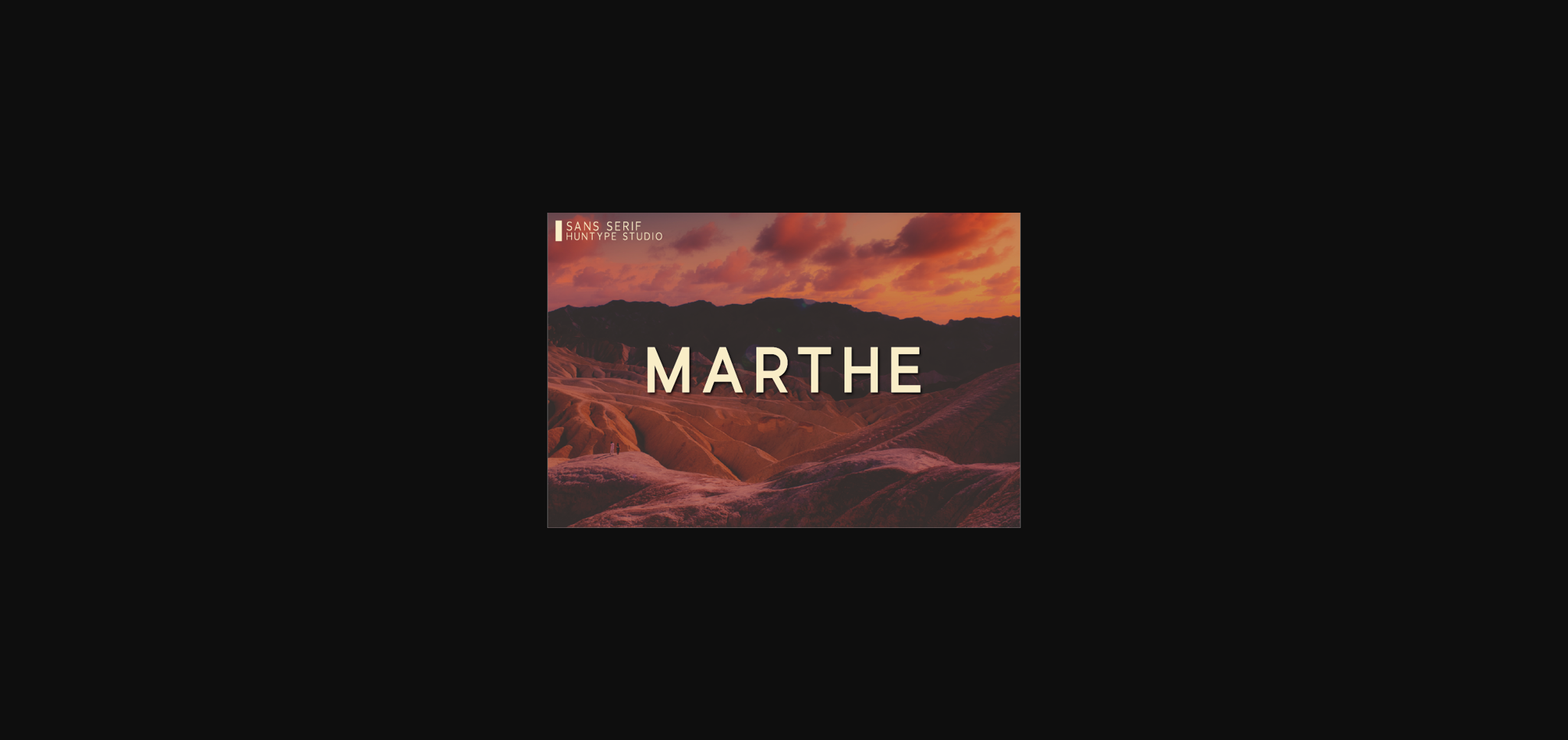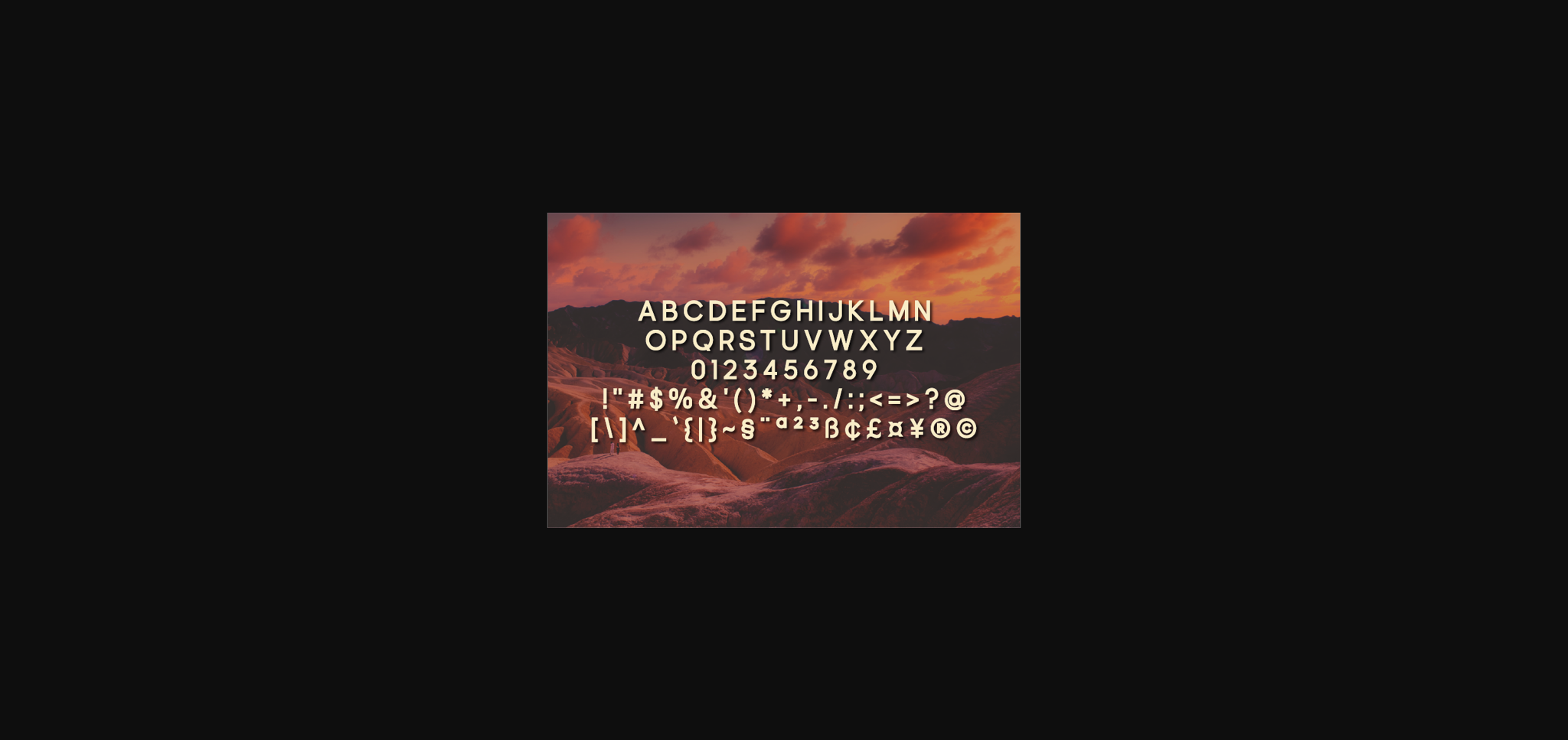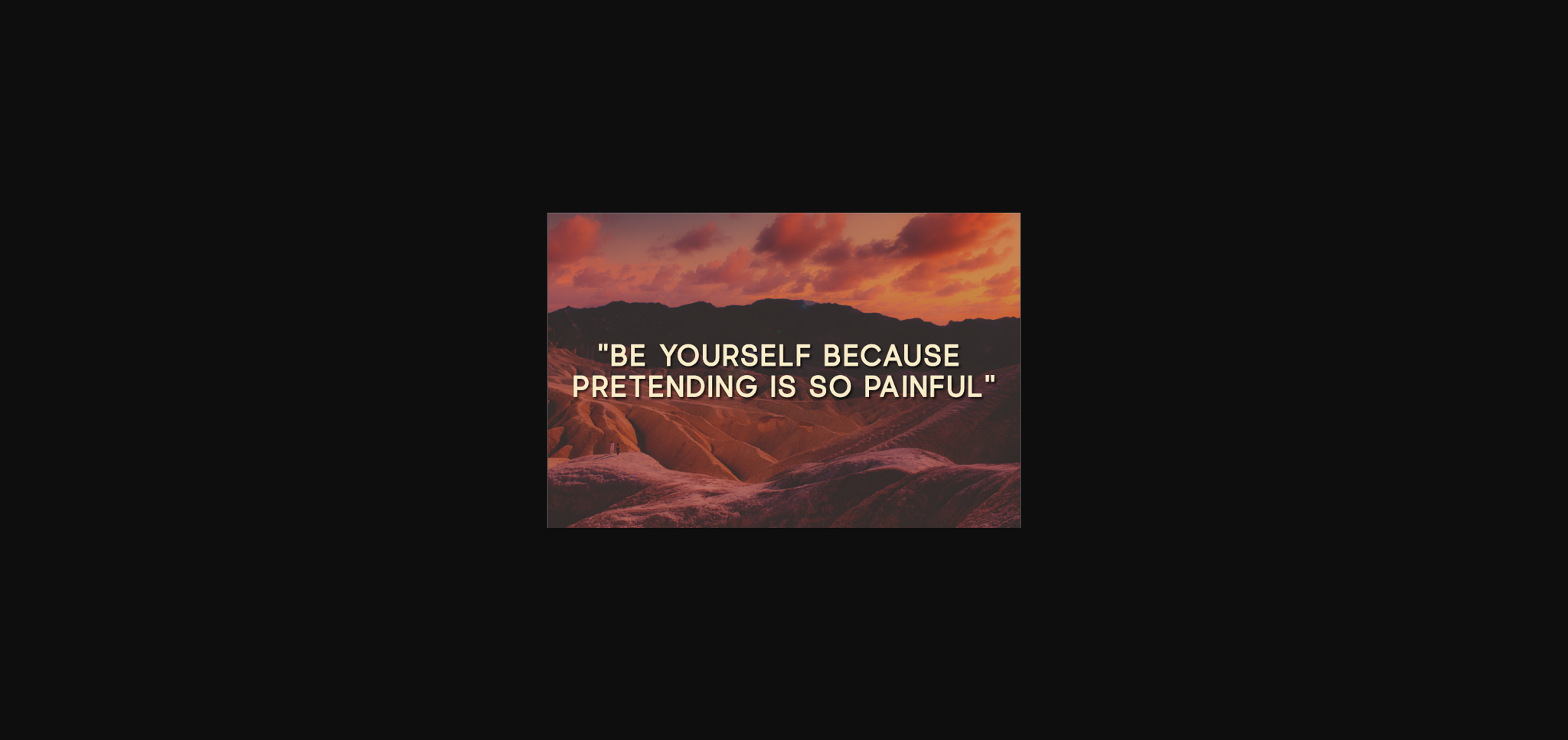
HomeSans Serif FontsMarthe Font Sans Serif Fonts Marthe Font FacebookXPinterestWhatsApp 1 of 5 ... Marthe Font Poster 2... Marthe Font Poster 3... Marthe Font Poster 4... Marthe Font Poster 5... About Marthe Font Marthe is a minimal and neat sans serif font. It can easily be matched to an incredibly large set of projects, so add it to your creative ideas and notice how it makes them stand out! DOWNLOAD NOW People also explored Rahasya Signature Font Blindly Font Montsega Font Local Druggist JNL Font Broadway Capitals Font Nature Adventure Font Yesterday Dream Font Beautiful Dream Font Peyton Font 368 0 TagsMartheMarthe Font Previous articleThalatte FontNext articleMoneth Font LEAVE A REPLY Cancel reply Comment: Please enter your comment! Name:* Please enter your name here Email:* You have entered an incorrect email address! Please enter your email address here Website: Save my name, email, and website in this browser for the next time I comment. Personal Use Free DangeRNighT Font Personal Use Free Read more about this font Glosery Personal Use Free Read more about this font Bonifaciy Personal Use Free Read more about this font Comic Caps Personal Use Free Read more about this font BLOG 5 Fonts That Will Dominate Design Trends in 2026 5 Fonts for 2026 That Will Dominate Design Trends Typography plays a critical role in visual communication, and as we look ahead to 2026, it’s... To increase your work productivity, choose the most readable fonts. Using Fonts in Digital Marketing: Tips to Strengthen Your Brand Identity Fonts That Capture the Spirit of New York City